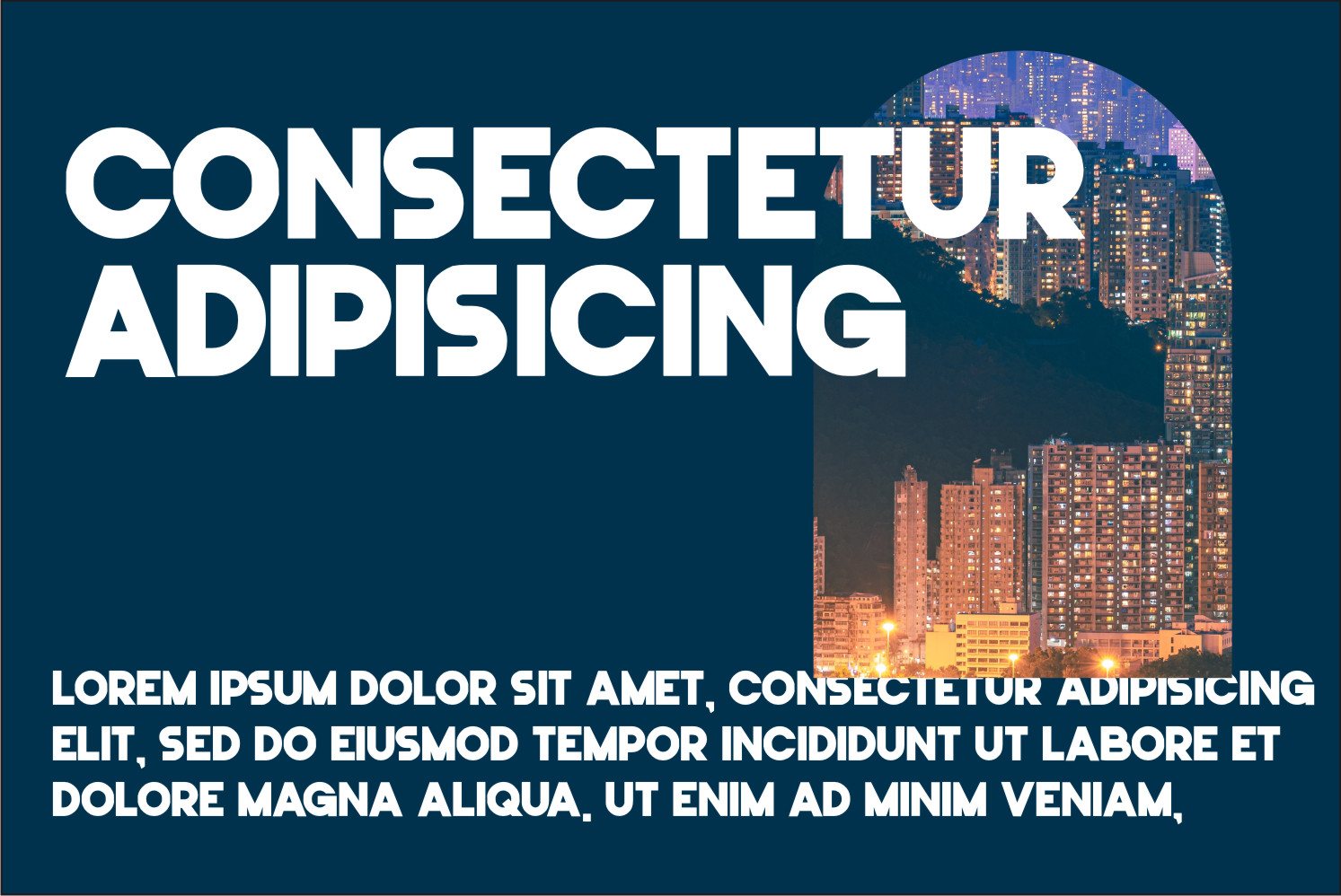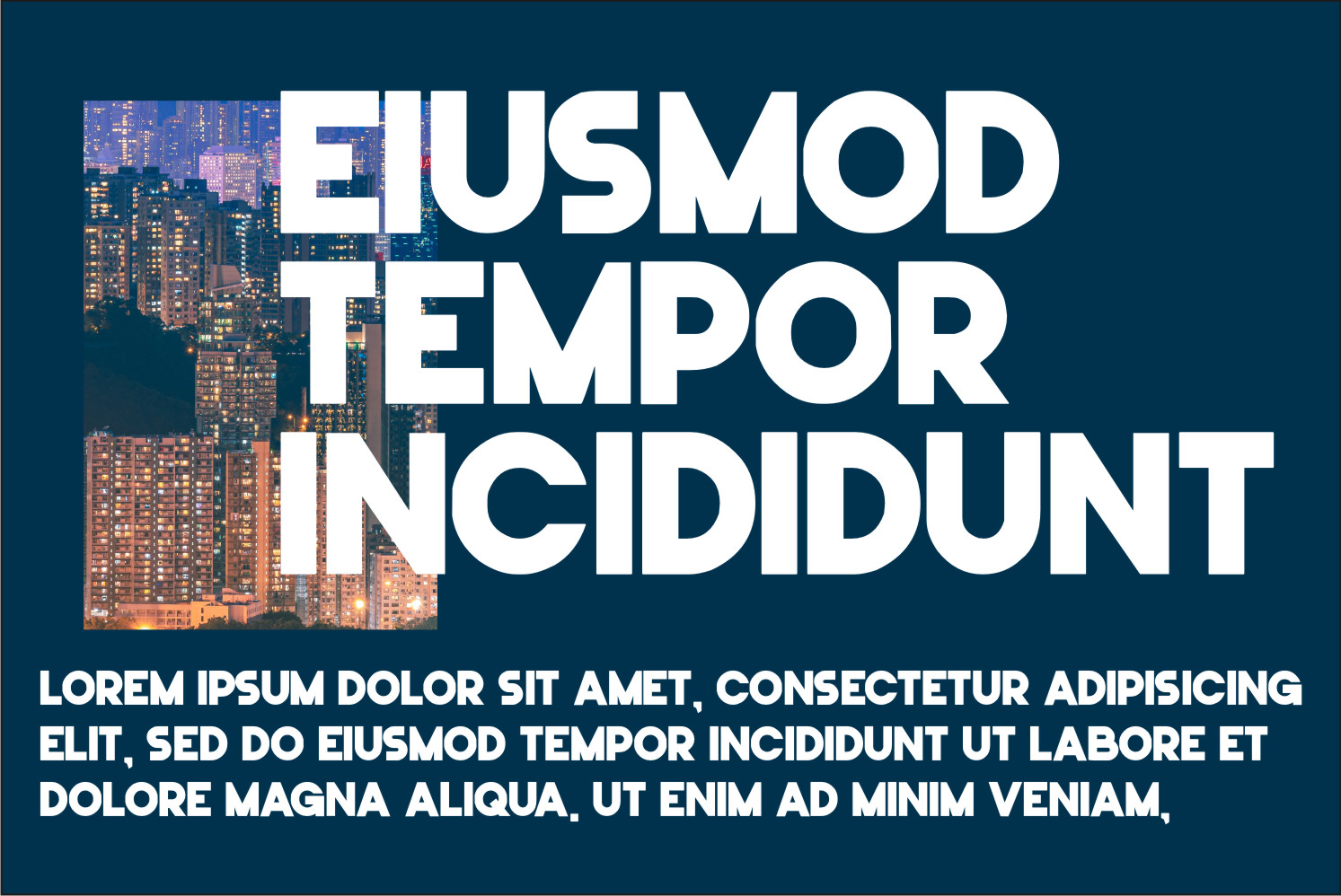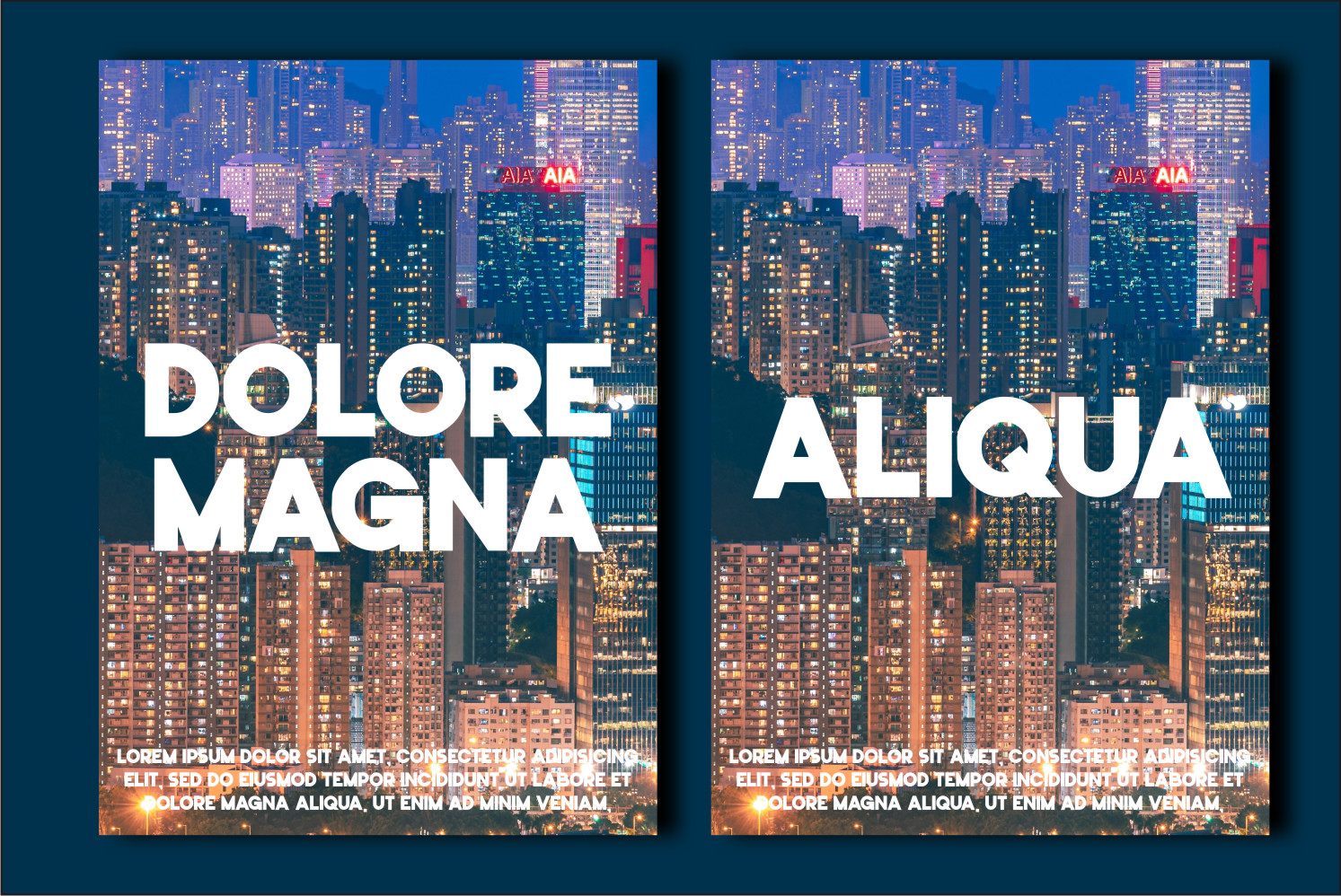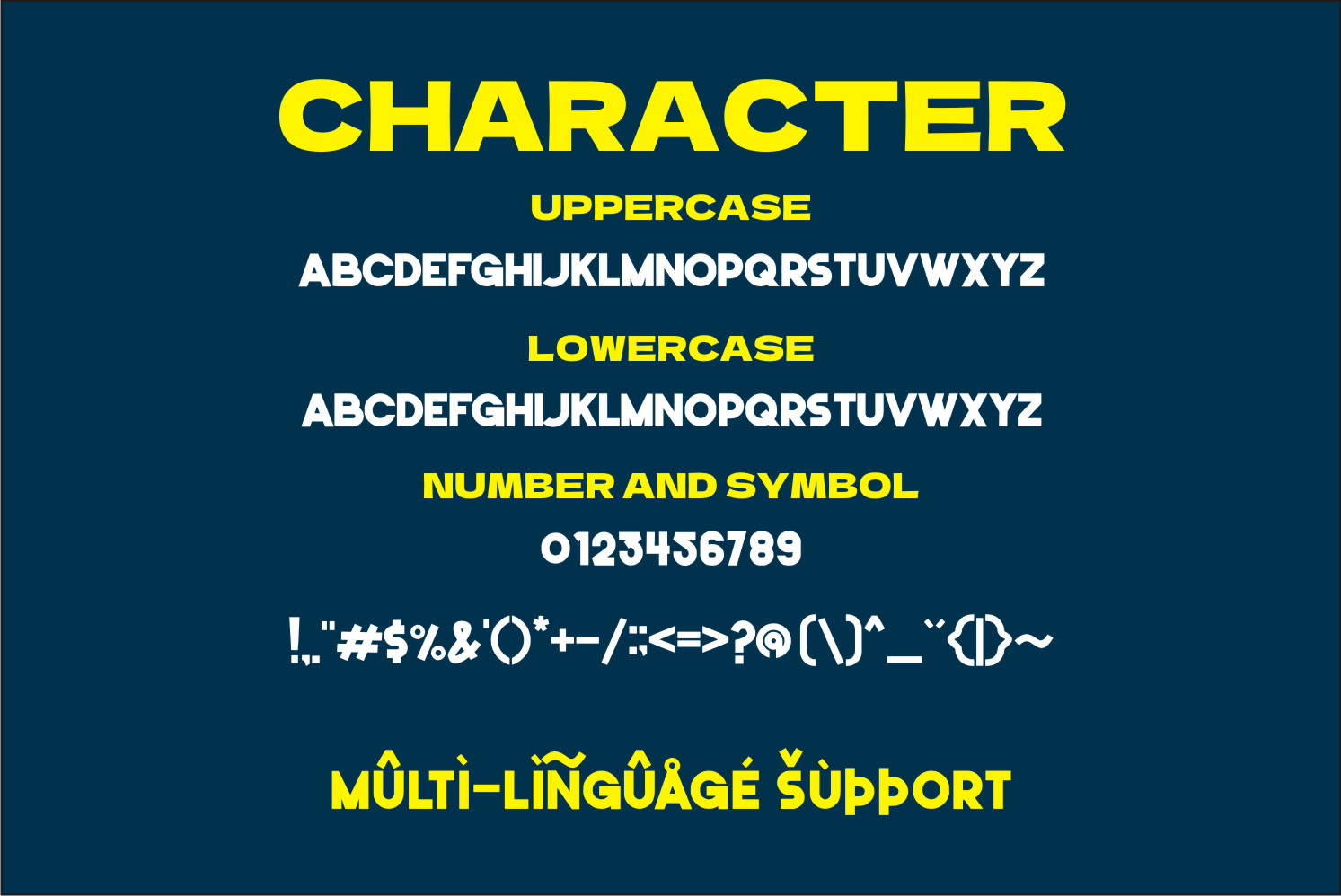
Milone Display Font
It’s a bold and thick lettered sans serif font. No matter the topic, this font will be an incredible asset to your fonts’ library, as it has the potential to elevate any creation.